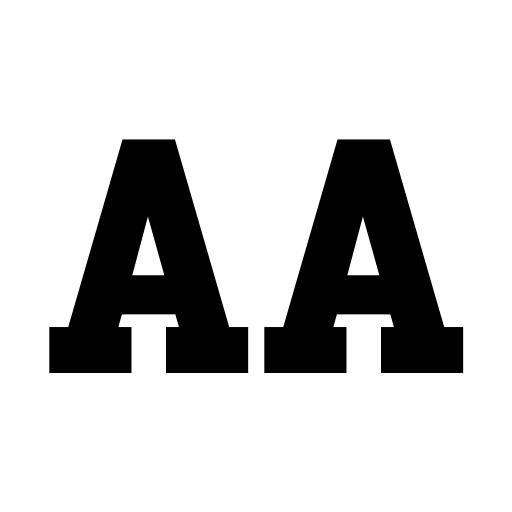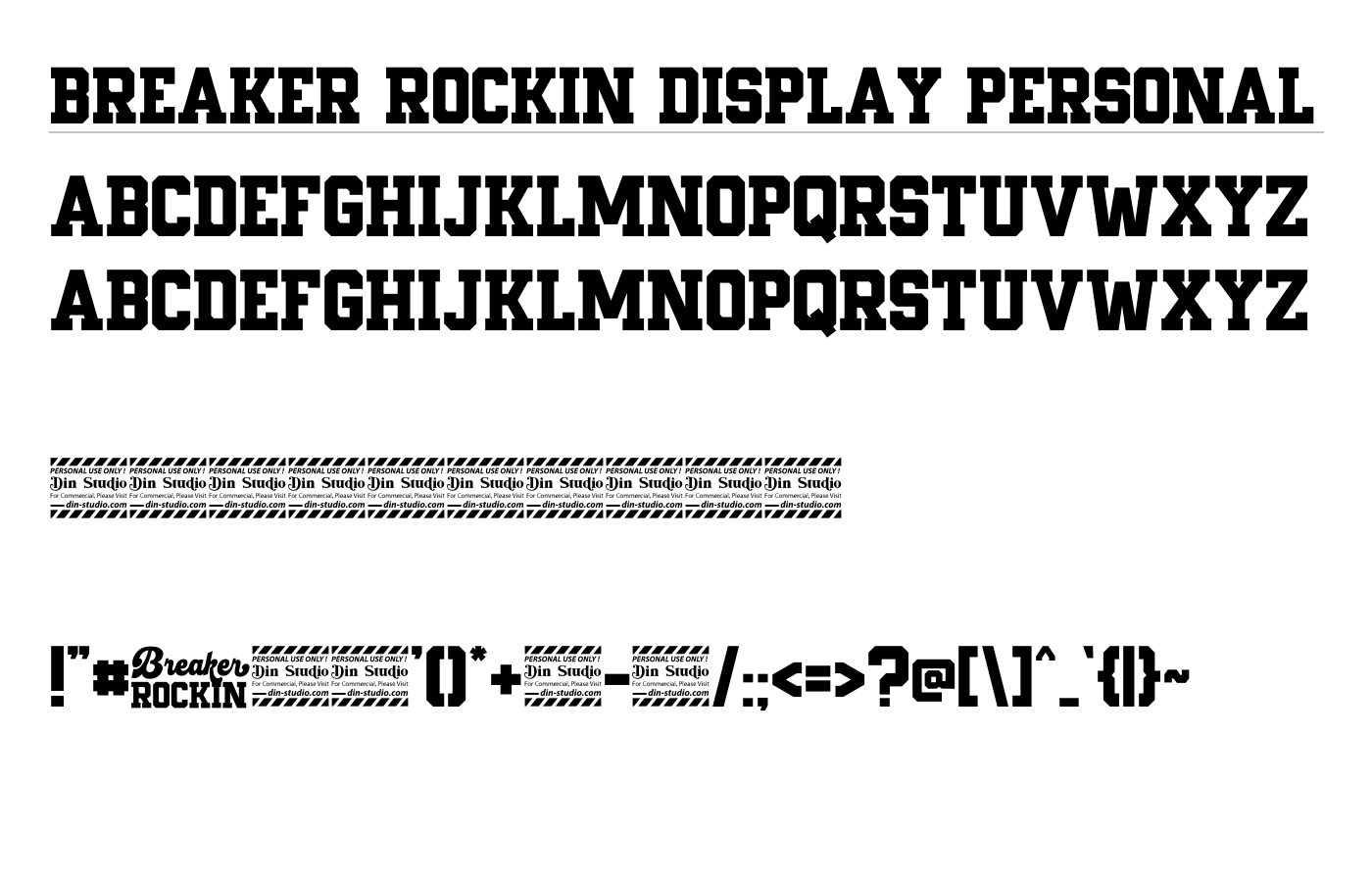
Breaker Rockin Display Personal is a bold, slab serif typeface with a strong and sturdy presence, characterized by thick, blocky letterforms and minimal stroke contrast. Its solid, geometric shapes and high x-height give it a powerful, vintage yet timeless feel, making it perfect for impactful headlines, logos, and designs that need to convey strength and confidence. This font works exceptionally well in sports, industrial, or retro-themed branding where a robust and eye-catching display typeface is needed.
Breaker Rockin Display Personal Font
About Breaker Rockin Display Personal Font